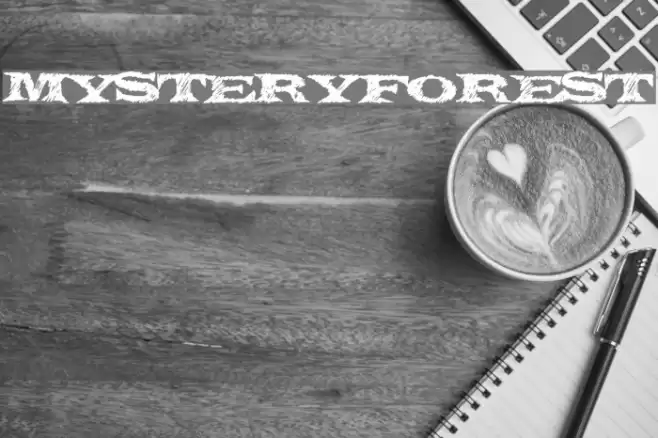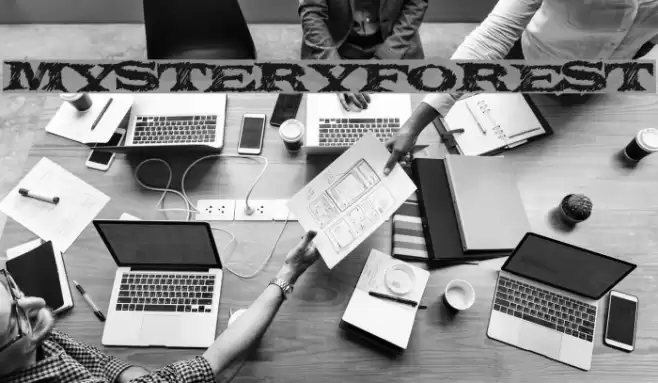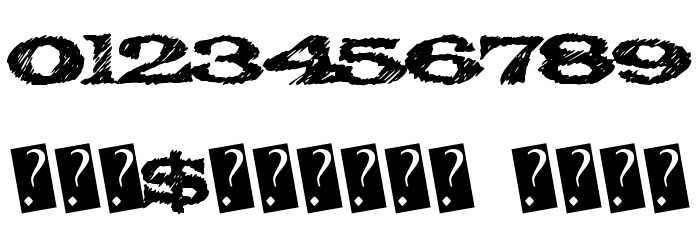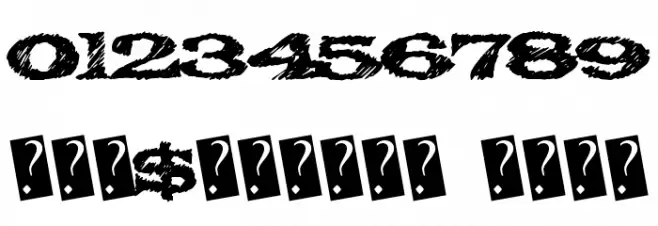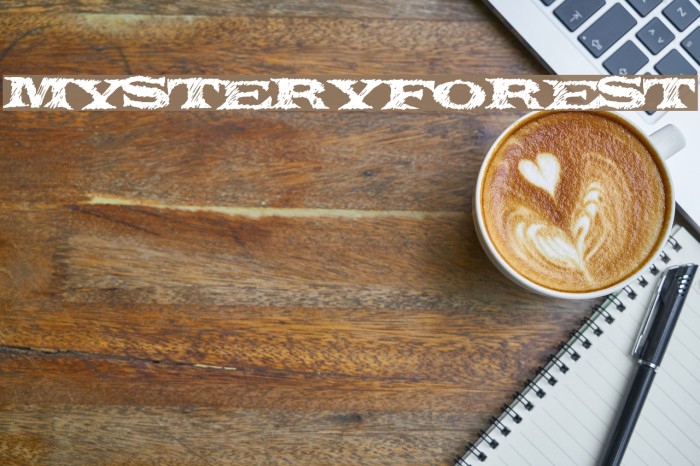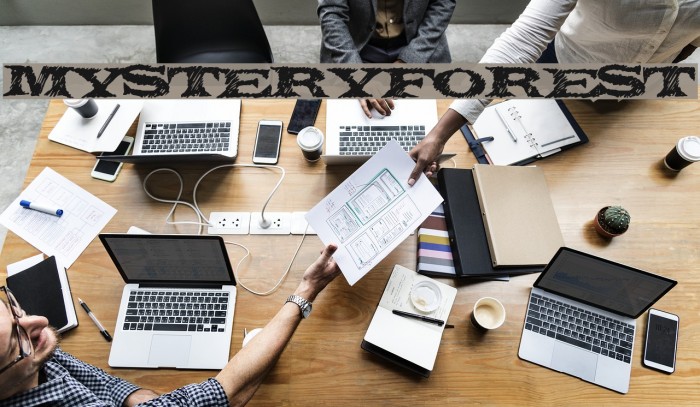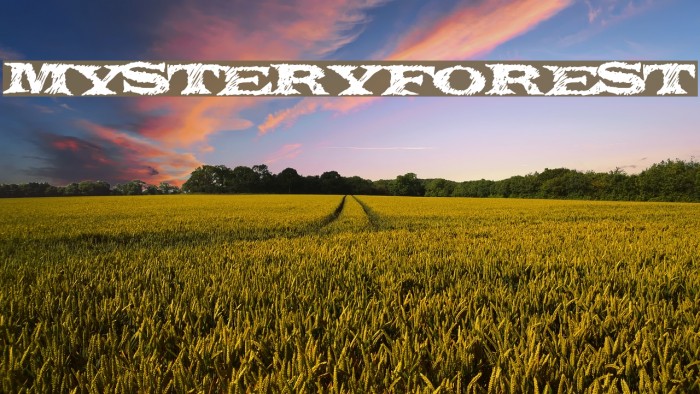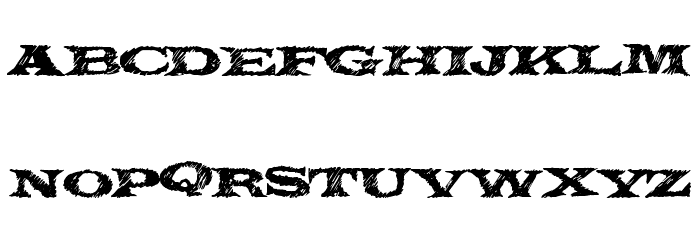
MysteryForest Font
MysteryForest Description
This font features a rugged, textured design that mimics the appearance of natural elements like leaves or bark. Each character is intricately detailed, giving it a wild and untamed aesthetic. The uppercase and lowercase letters maintain a consistent style, with jagged edges and a bold presence. Numbers and special characters follow the same theme, ensuring a cohesive look across all text. The font's unique style makes it stand out, ideal for projects that require a touch of nature or a rustic feel. Its decorative nature suggests it is best used sparingly to maximize impact.
A rugged, textured font with a natural, wild aesthetic from Uncategorized fonts.
- Proposed Projects: Ideal for nature-themed posters, outdoor event flyers, eco-friendly brand logos, or rustic wedding invitations.
- Use Case: Logos, Headlines